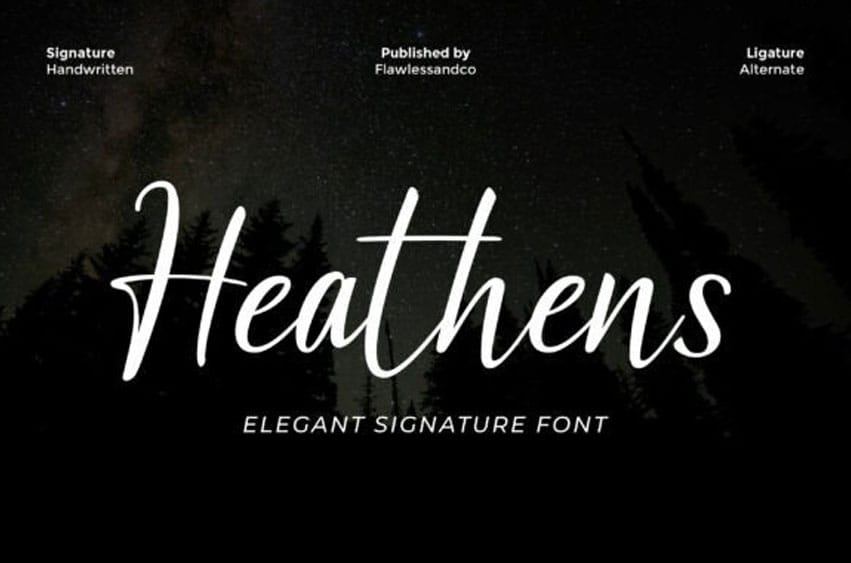
Heathens Font is an elegant handwritten signature font designed to bring a natural, personal, and luxurious feel to your designs.
With smooth strokes, graceful curves, and a flowing handwritten character, this font delivers a refined yet authentic signature style that feels timeless and expressive.